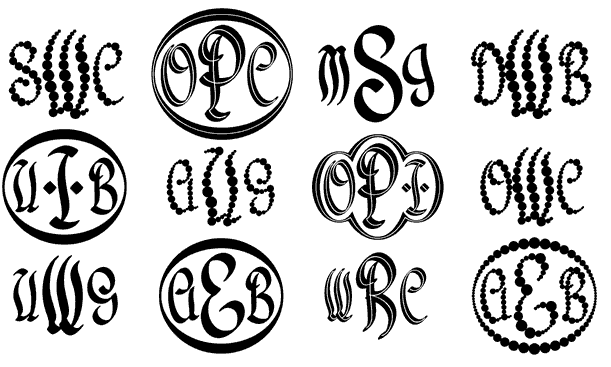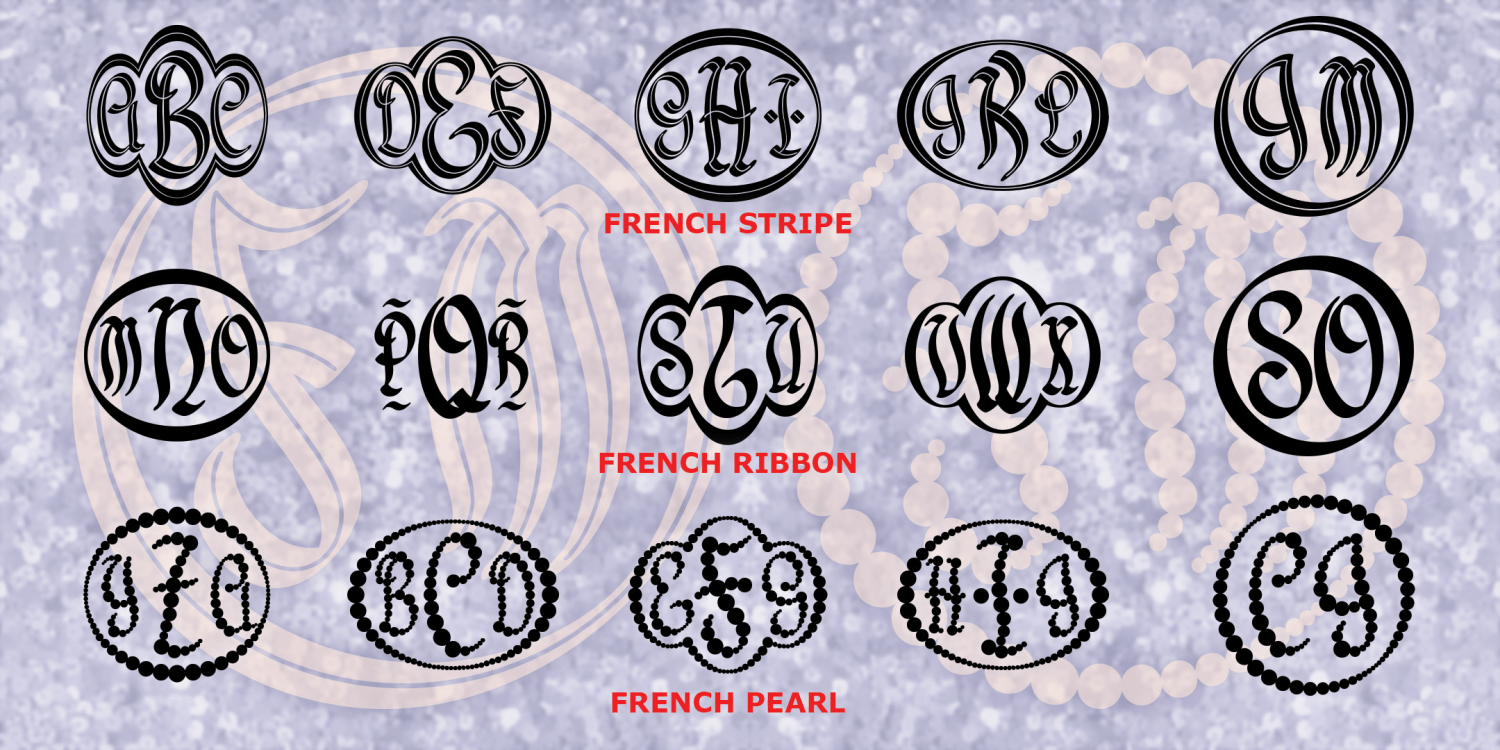
French Monograms
About French Monograms
FRENCH MONOGRAMS is a set of fonts that let you create 2- or 3-letter monograms in a graceful, cursive style inspired by vertical French scripts. For more goodness, I've created these in 3 different styles, resembling a calligraphic pen line, a striped…